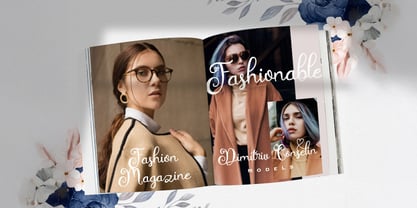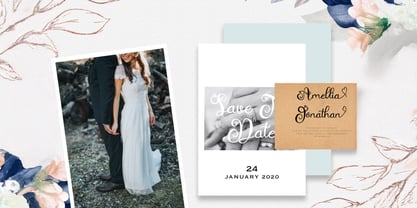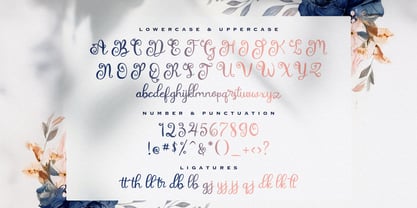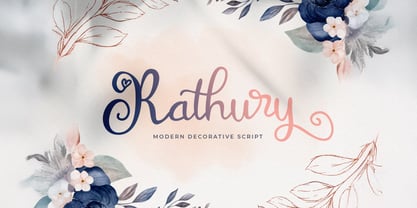
The Rathury Font Family was designed by Virgiawan Listanto and published by Stringlabs Creative Studio. Rathury contains 1 styles.
Rathury is a stunning modern decorative script font that blends elegance with intricate design. Its flowing, artistic letterforms are adorned with unique flourishes and details, making it perfect for high-end projects that demand a touch of sophistication.
Designers: Virgiawan Listanto
Publisher: Stringlabs Creative Studio
Foundry: Stringlabs Creative Studio
Design Owner: Stringlabs Creative Studio
Rathury